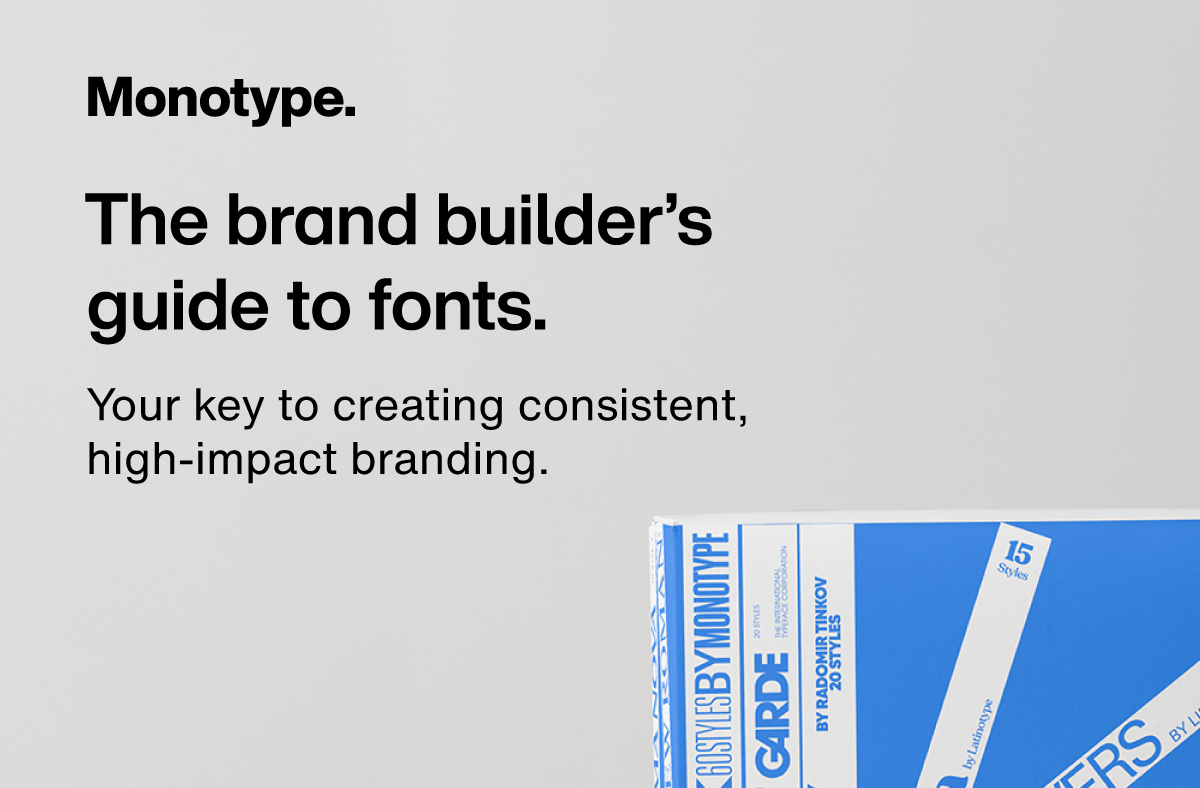
eBook: The brand builder’s guide to fonts.
Discover how typography can transform your brand in The brand builder’s guide to fonts. Dive into the pivotal role fonts play in shaping brand identity, enhancing emotional connections, and crafting compelling stories. From selecting custom typefaces to maintaining consistency across platforms, this eBook offers actionable tips to elevate your brand’s presence in today’s competitive landscape.
Highlights of what’s covered in the guide:
- The importance of custom fonts in showcasing brand values and personality
- How consistent typography strengthens brand recognition across all touchpoints
- Ways fonts can modernize your brand while staying true to its core identity
- The emotional impact of typography in building trust and relatability with your audience